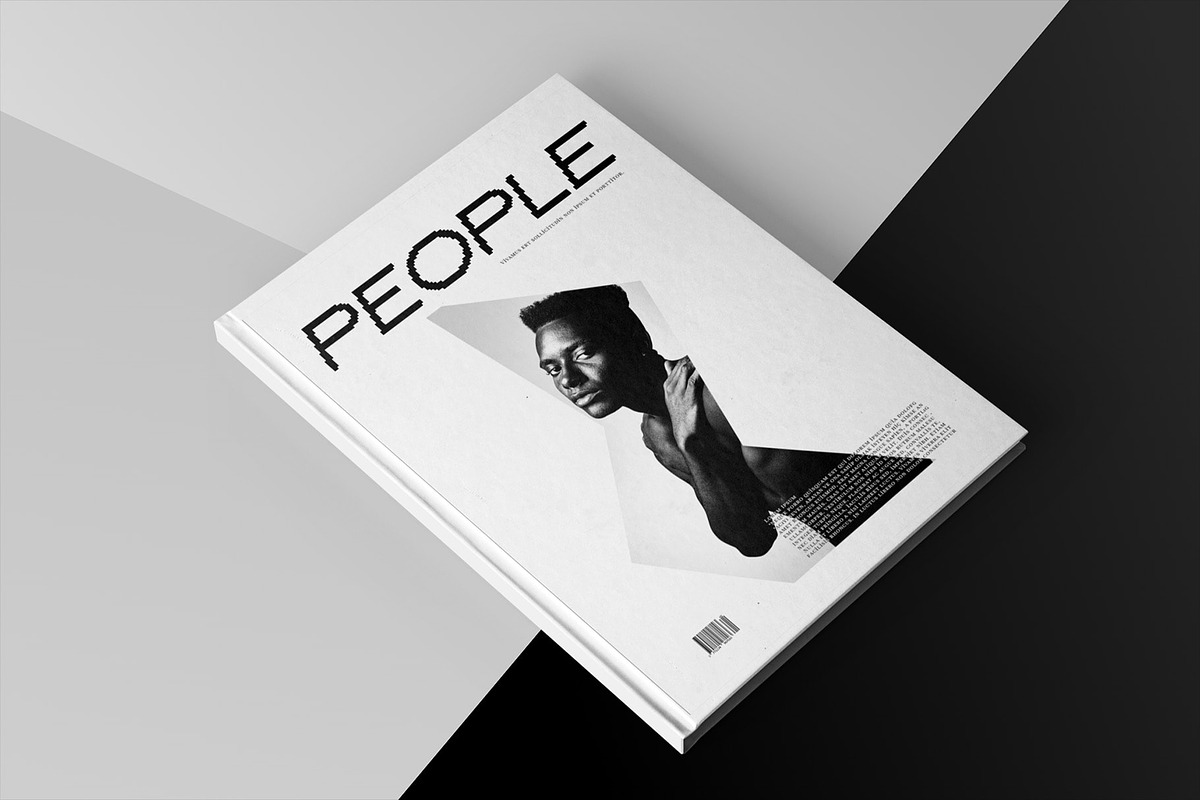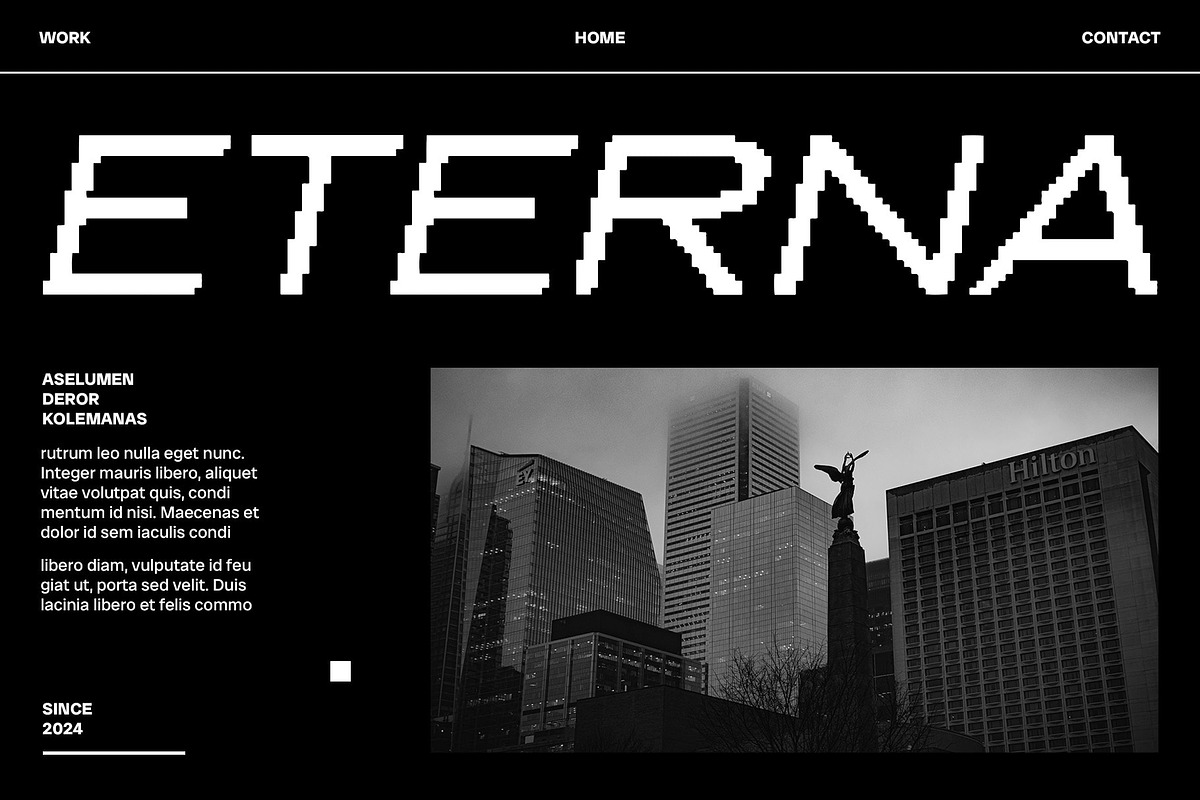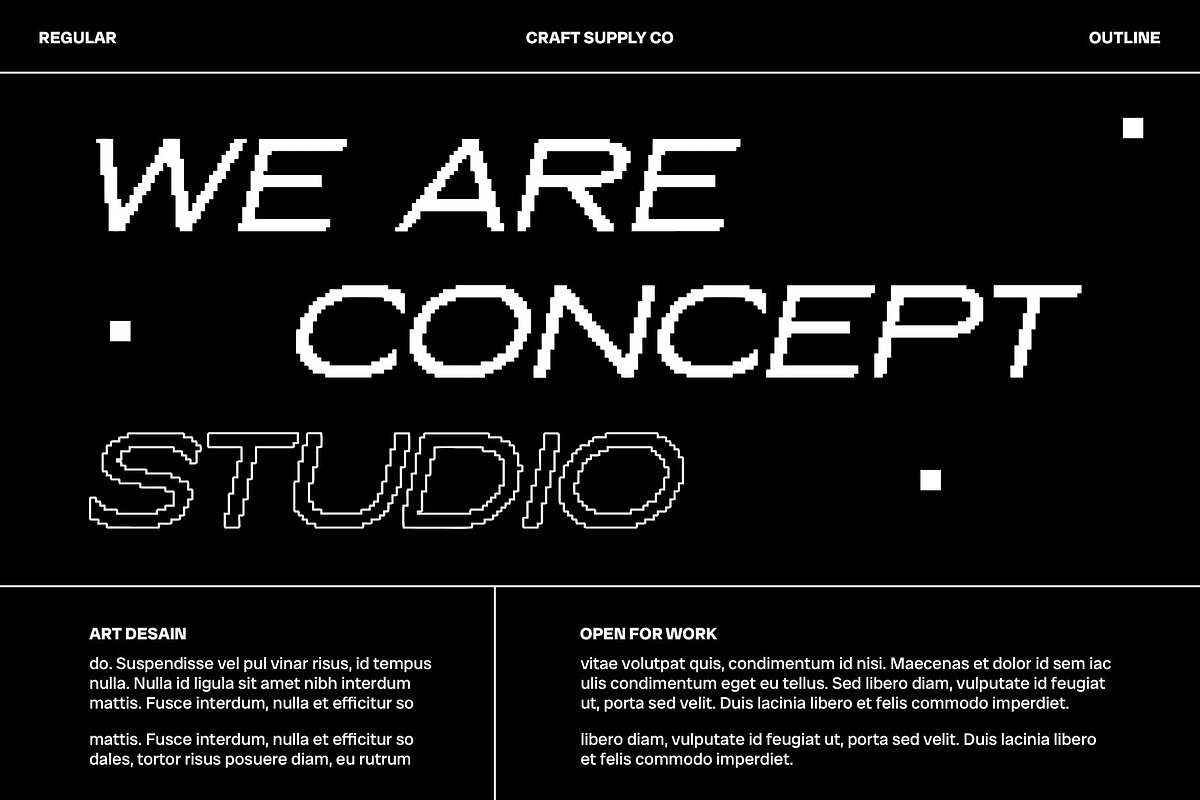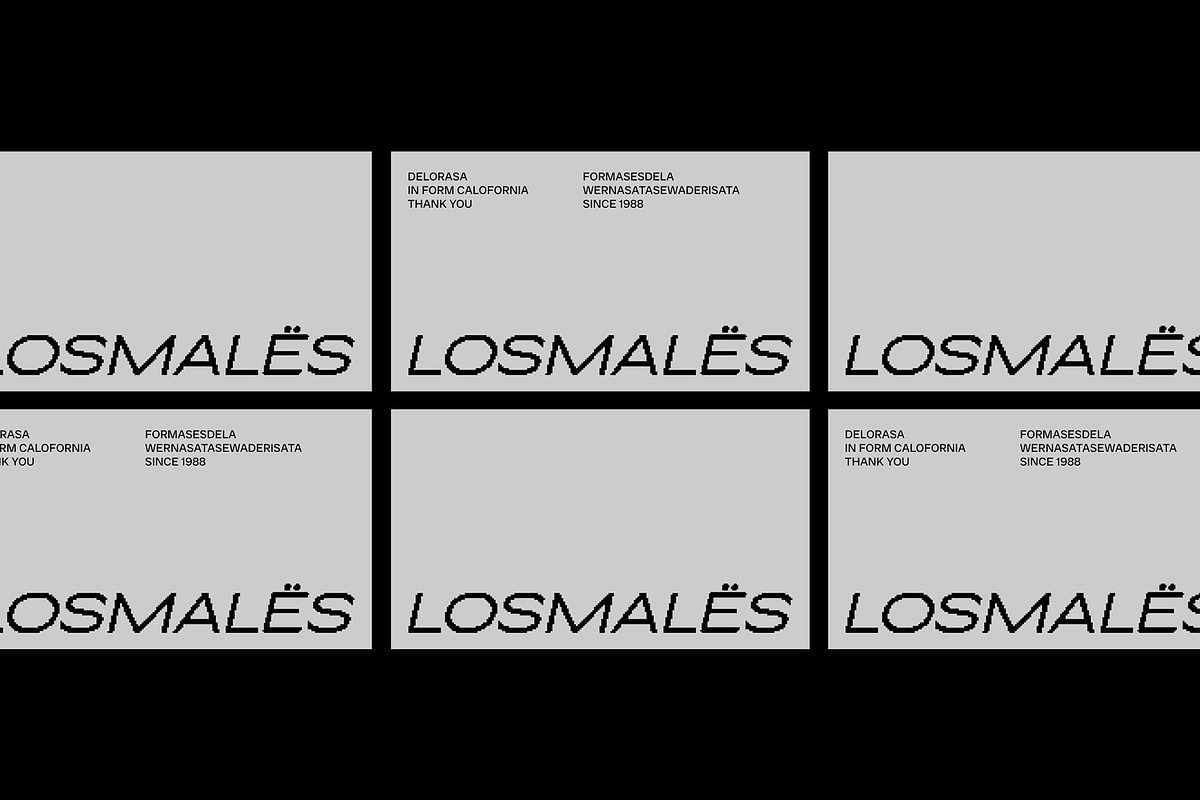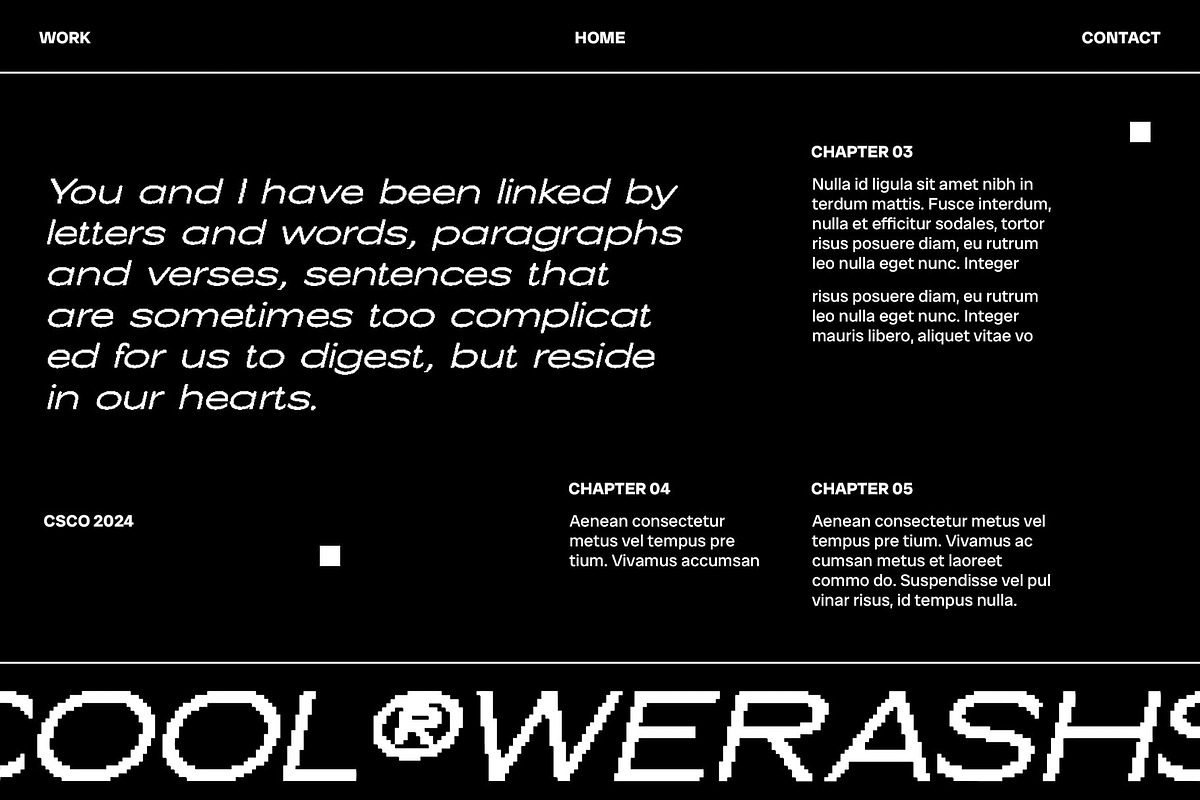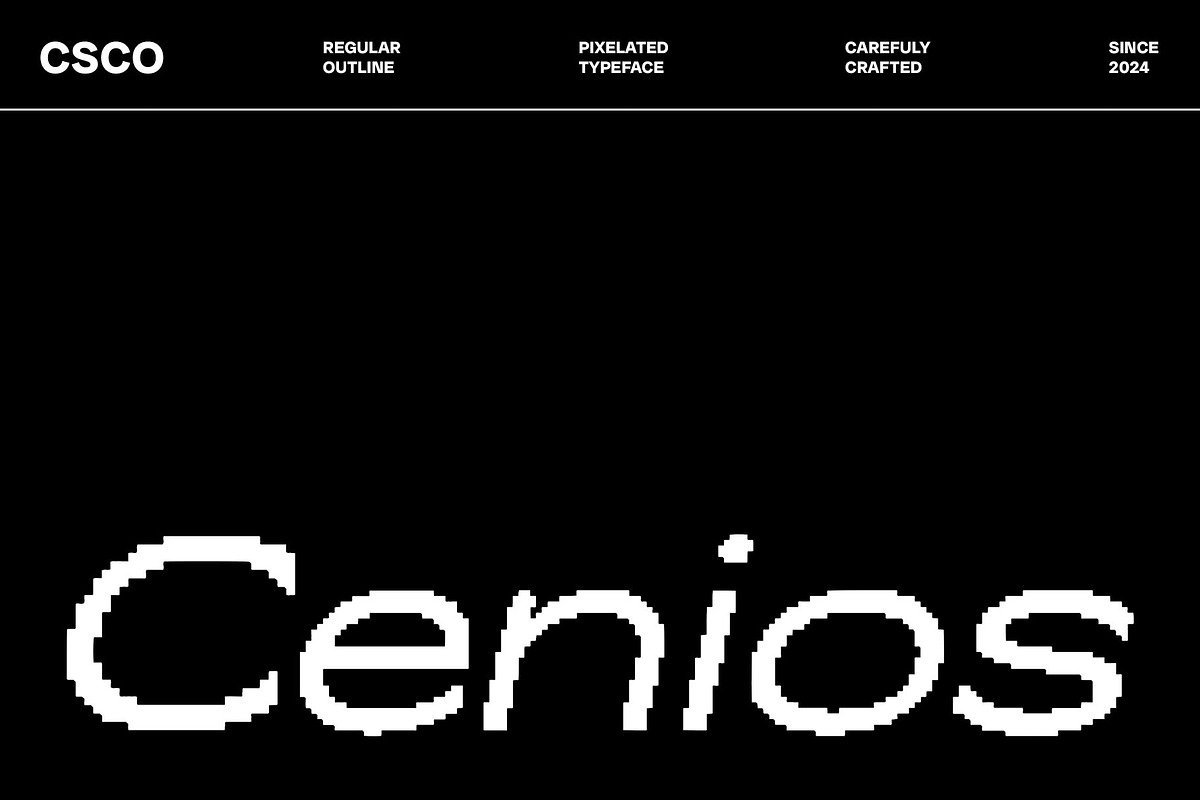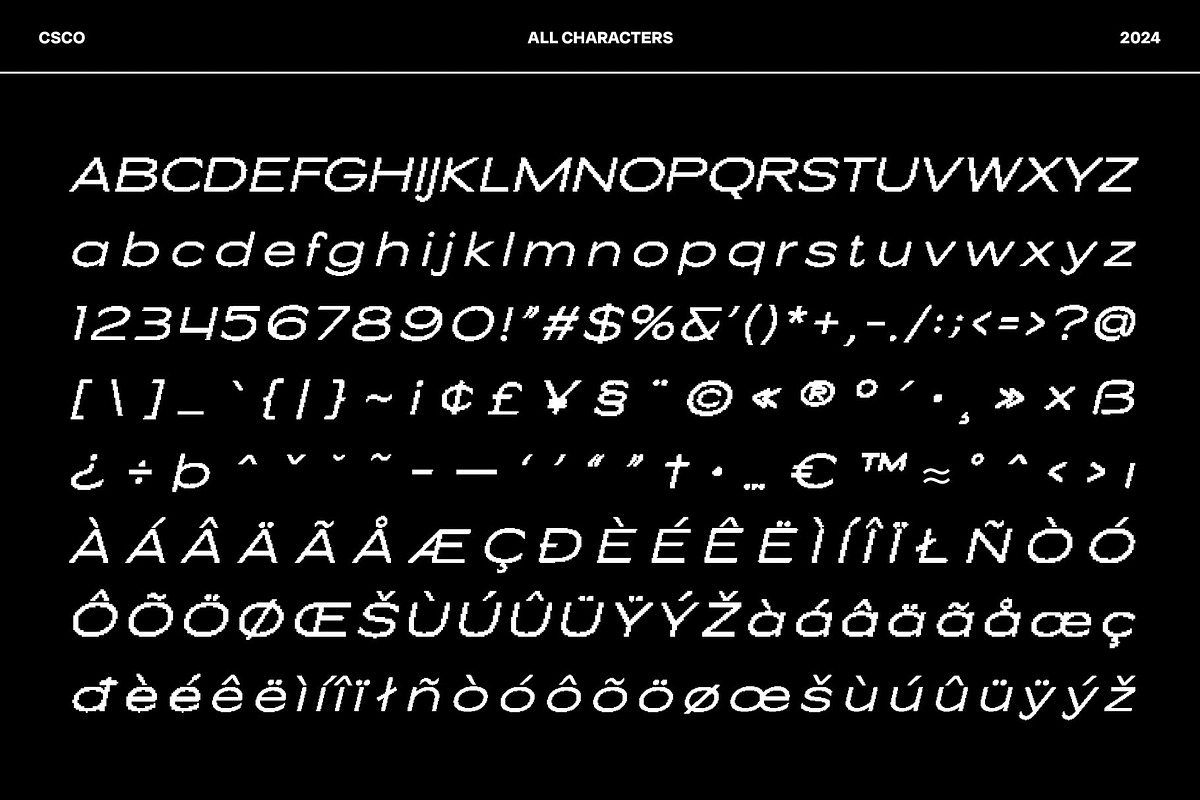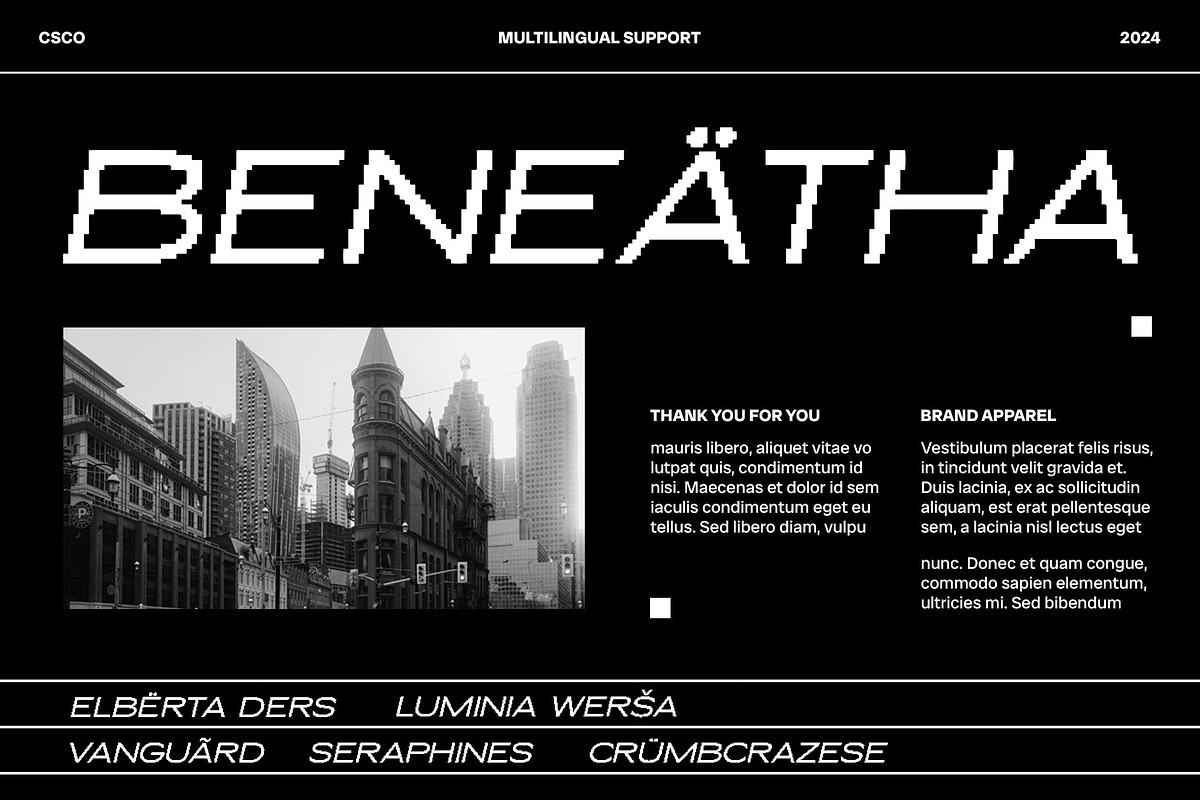
Cenios Pixel
Cenios Pixel: Where Modernity Meets Pixels
Modern Pixel Sans
Cenios Pixel is a sans serif font with a modern style and a pixel vibe, perfect for display purposes. Its clean lines and pixelated elements create a unique and contemporary look, ideal for headlines, banners, and other projects that require a bold statement.
Modern Style with Pixel Vibe
With its sleek design and pixelated details, Cenios Pixel offers a fresh take on traditional sans serif fonts. The modern style and pixel vibe create a captivating and dynamic look, perfect for designs that demand attention and convey a sense of modernity and innovation.
Perfect for Display Purposes
Whether you’re designing a website or creating a poster, Cenios Pixel is sure to make an impression. Its pixel vibe and modern style make it perfect for displays that need a touch of contemporary flair.
Versatile and Easy to Use
Despite its distinctive appearance, Cenios Pixel is versatile and easy to use. The font works well in both large and small sizes, making it suitable for a variety of applications, from headlines to body text. With its blend of modern style and pixel vibe, Cenios Pixel adds a captivating and modern touch to any design.
- Cenios Pixel Regular
- Cenios Pixel Outline